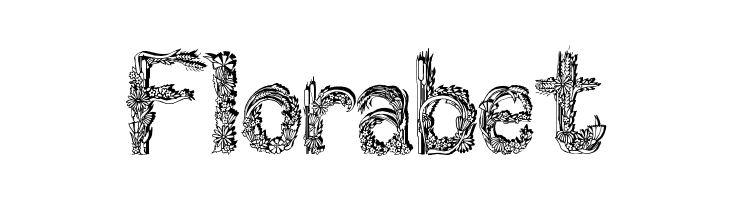
A bold, decorative font with floral accents on each character.
A bold, decorative font with floral embellishments on each character.
A decorative font with intricate floral designs and organic, whimsical style.
A bold, decorative font with intricate floral patterns in each character.
A decorative font with intricate floral patterns enhancing each character.
Ornamental floral stencil font with decorative botanical motifs.